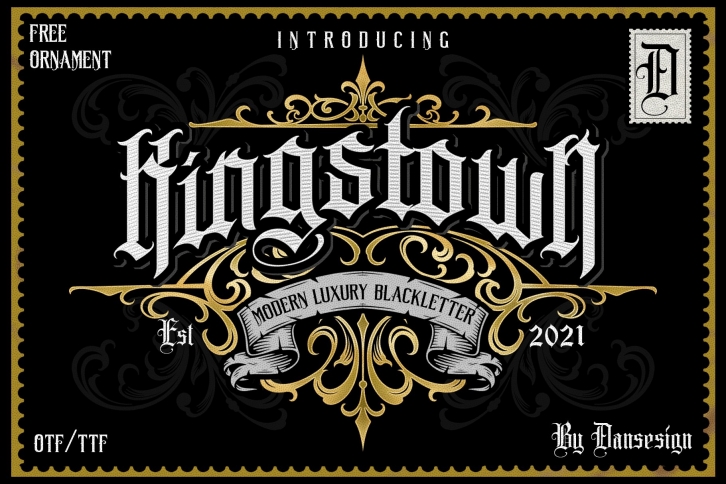
kingstown Blackletter is a trendy and unique font with an authentic style. It was designed by dansdesign and it's a great choice for creative people who need such a font. It was released on December 21, 2021 and the file size is 5.86 MB. kingstown Blackletter will add an organic vibe to any design idea!